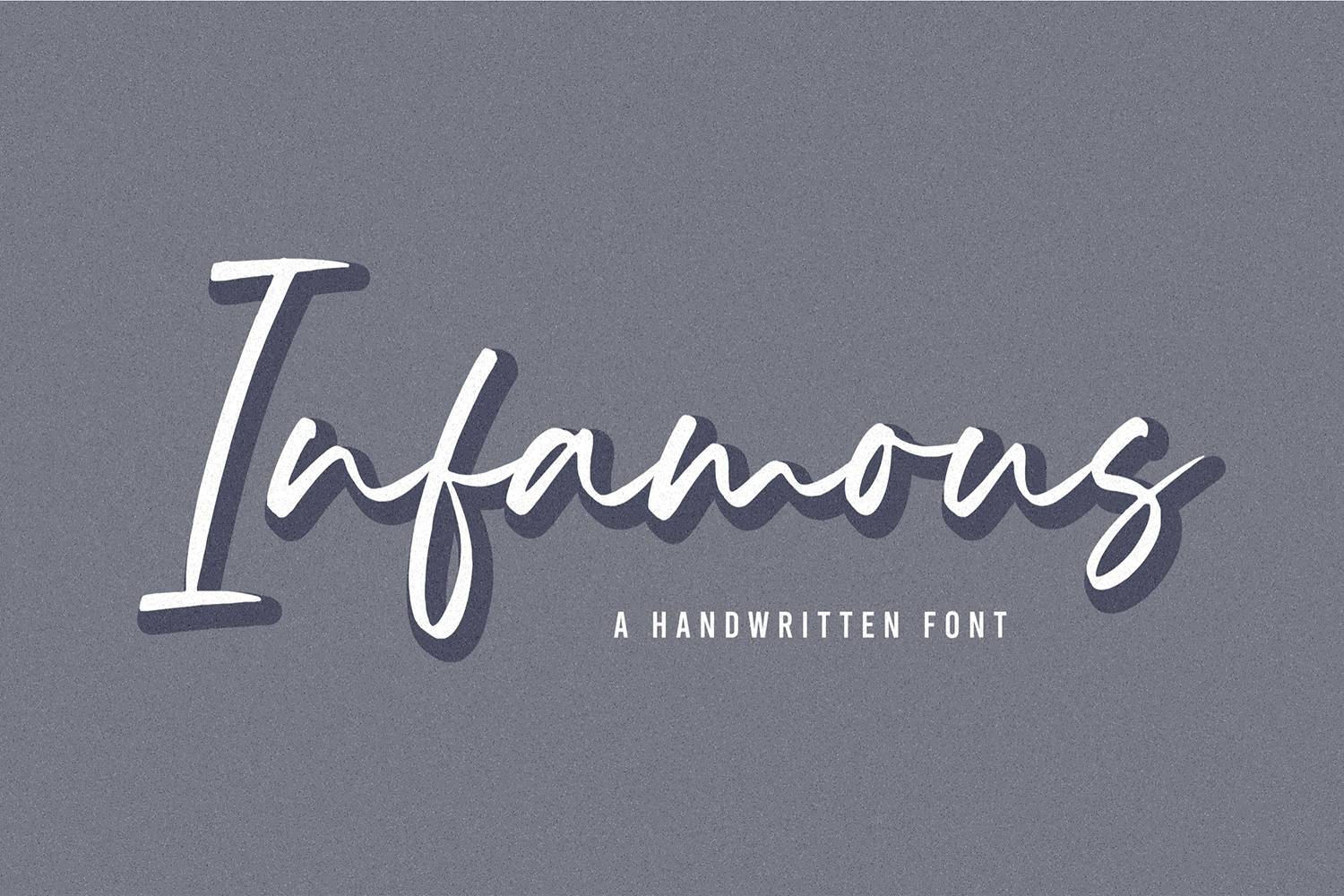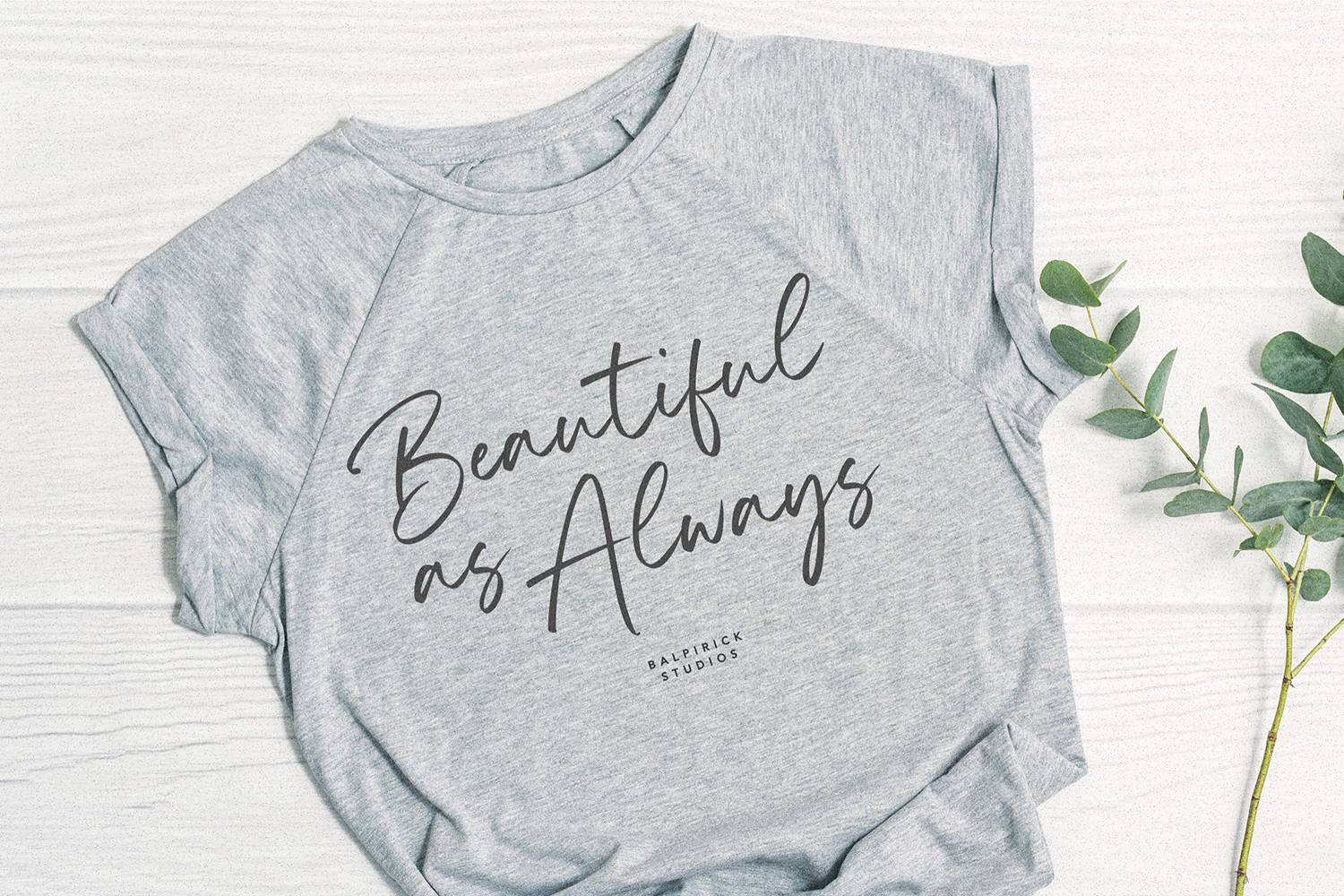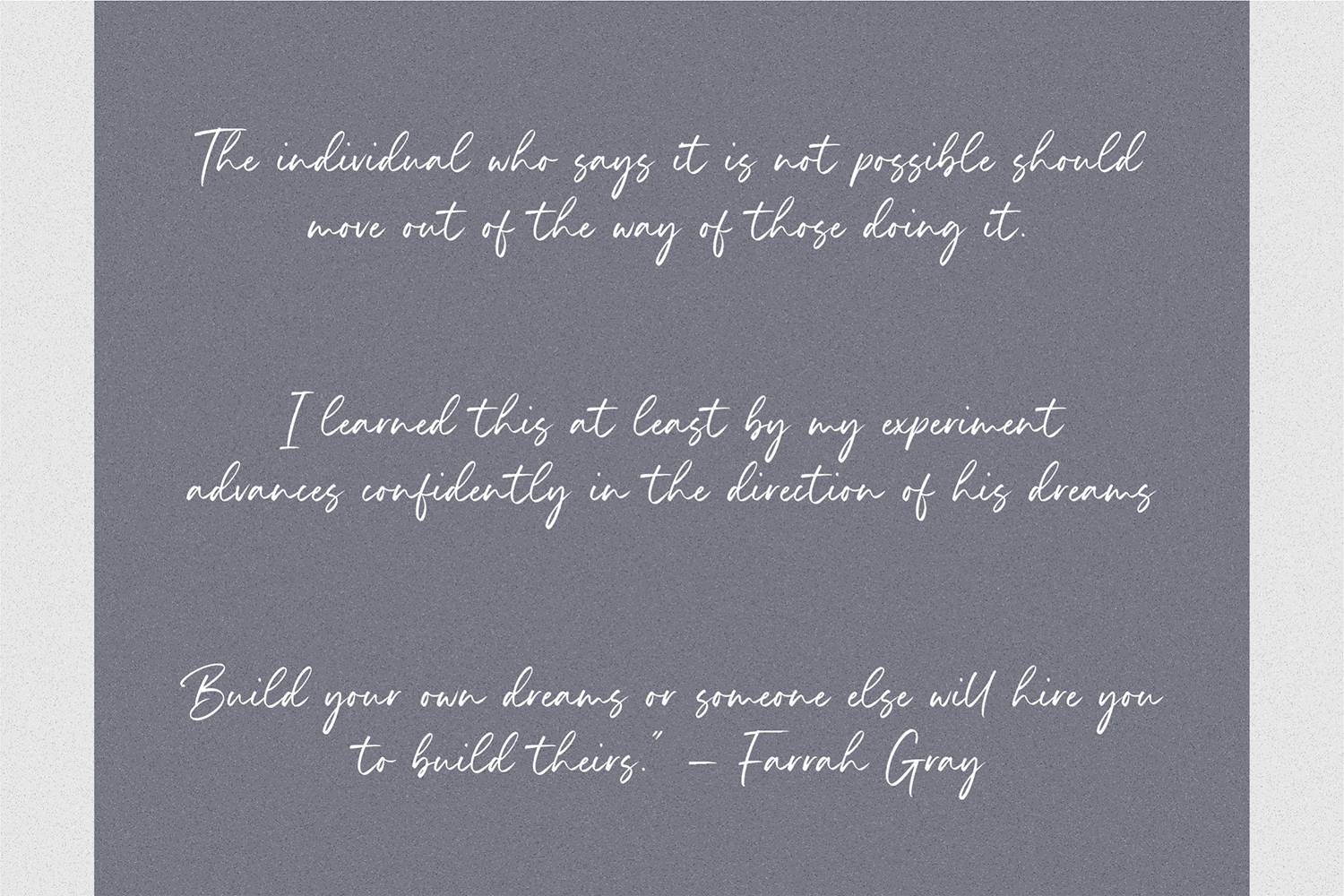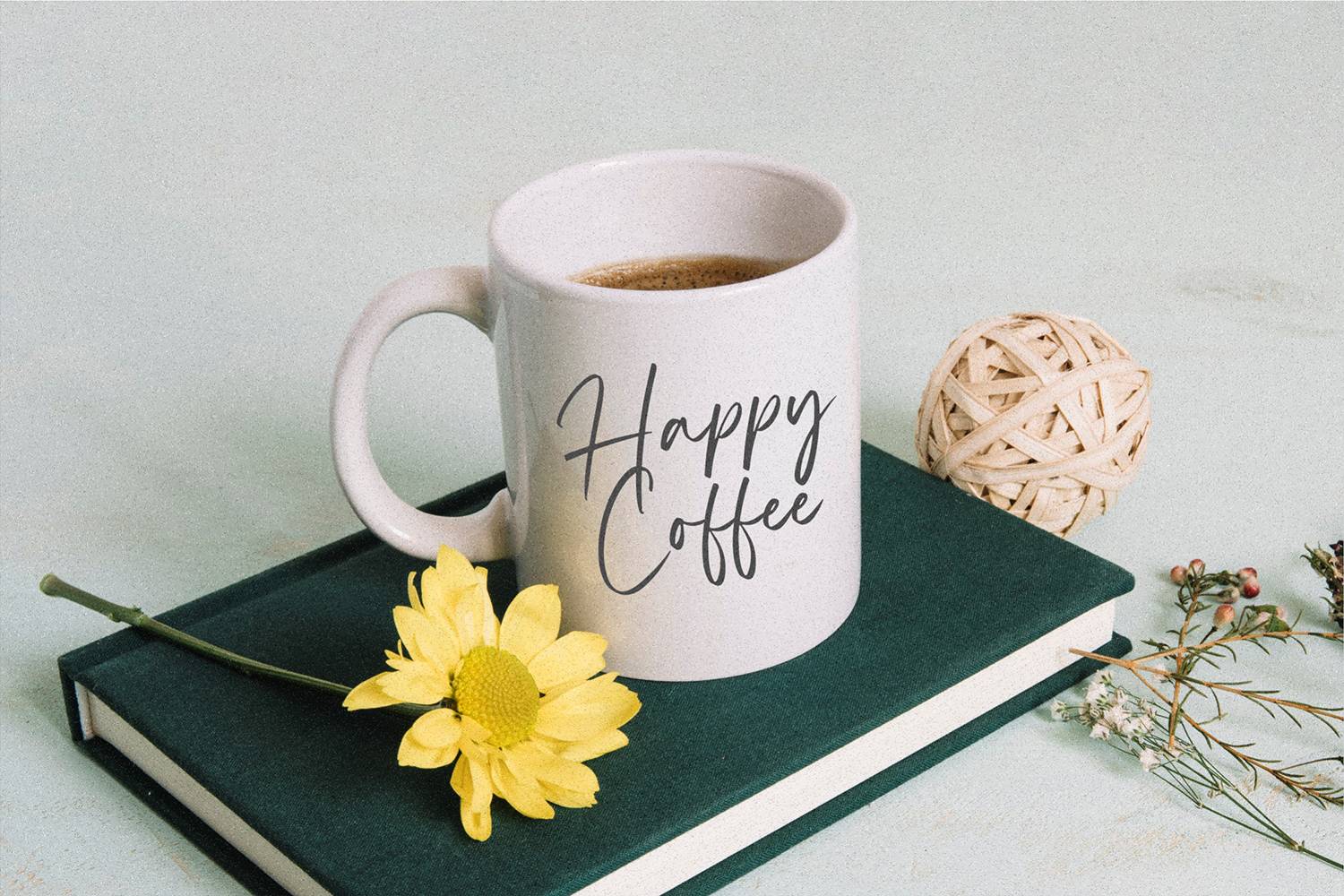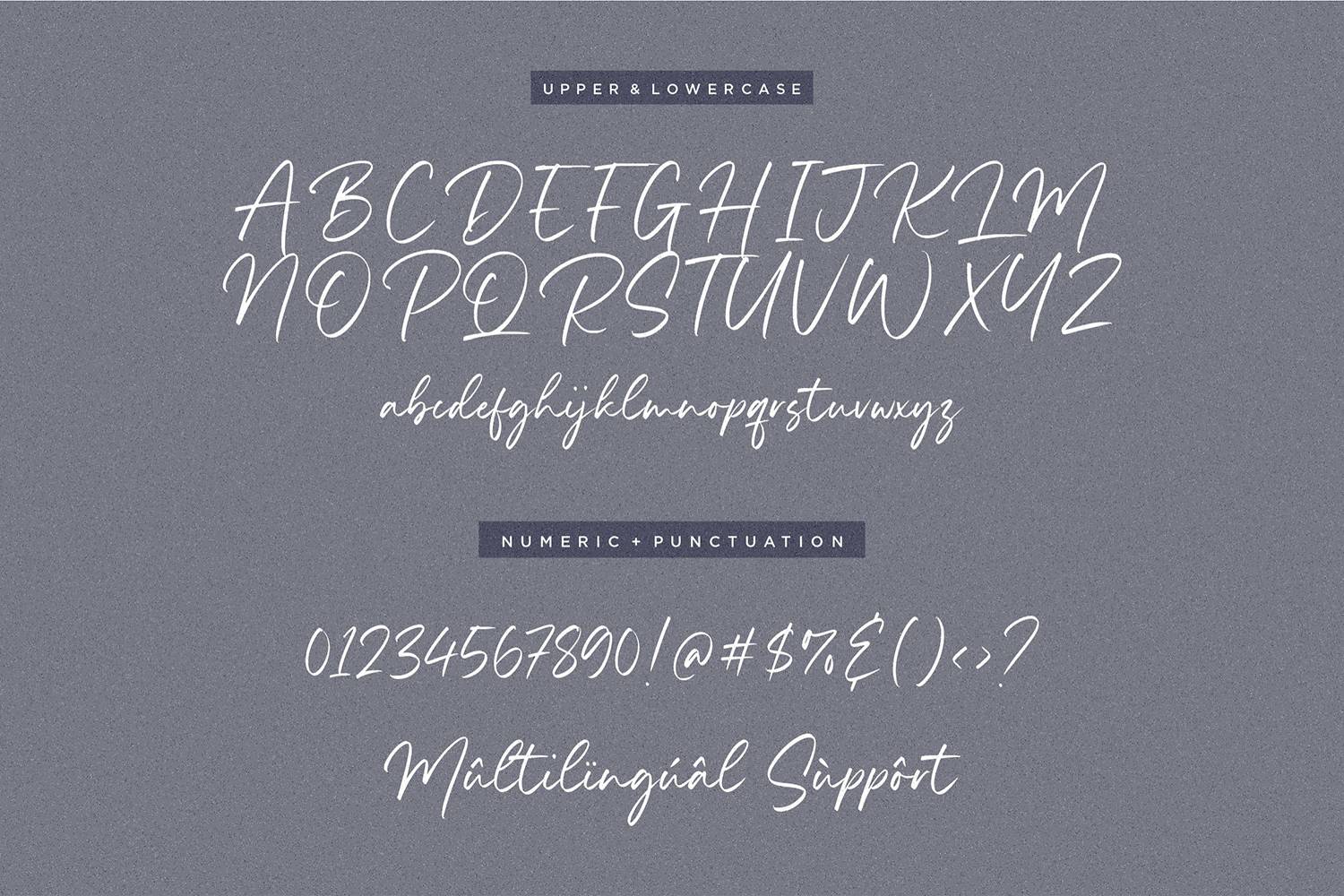
Infamous is a stylish handwritten script font that exudes a casual yet elegant vibe with its thin, flowing strokes and slightly slanted letterforms. Its airy spacing and natural, calligraphic feel make it perfect for adding a personal, sophisticated touch to branding, invitations, logos, and social media graphics where a modern, approachable elegance is desired.
Infamous Font
About Infamous Font